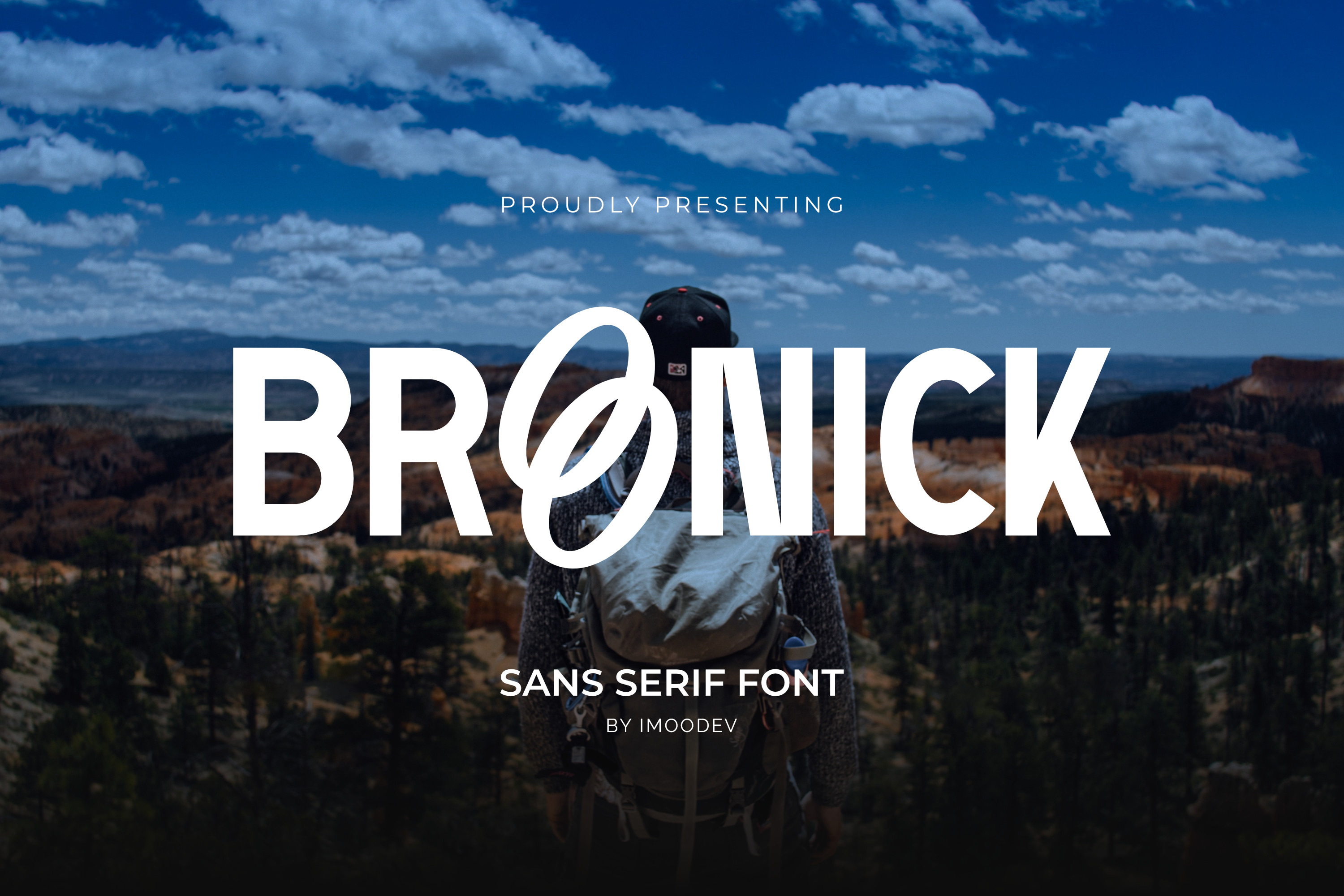
Broonick - Minimalist Display Font
Broonick is a minimalist display sans serif type featuring clean geometry, striking tall proportions, and a rich set of unique stylistic alternates. Designed with sharp lines and high impact visual weight, it balances modern minimalism with cinematic editorial flair.
This font ideal uses:
Movie Posters and Film Credits
Brand Identity and Logo Design
Magazine Covers and Editorial Layouts
Advertising and Billboard Headlines
Outdoor, Adventure and Streetwear Apparel Packaging
Uppercase and Lowecase Characters.
Numerals and Punctuations.
Alternates and Ligatures.
Multilingual Support.